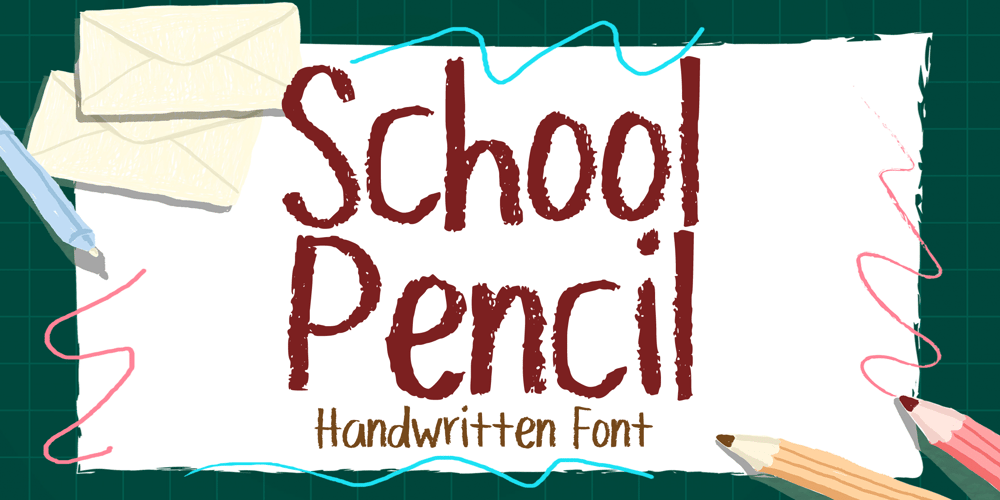
School Pencil Font Family was designed by Gabriel Valentinus and published by Mvmet. School Pencil contains 1 styles and family package options. School Pencil is a fun daily use and suitable for everyday use font with pencil, crayon, graphite textures. It will elevate a wide range of design projects to the highest level. You can use this font for many design ideas such as stickers, t-shirt designs,merchandise designs, amazing logo designs, magazine or book covers, comics, cartoon drawings, daily typing, and many more. This font will add a super cool touch to your designs!